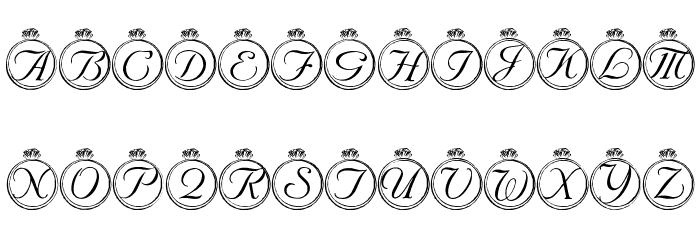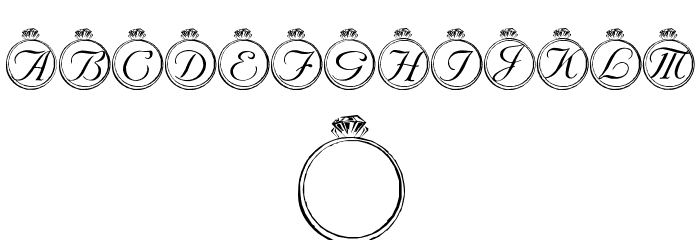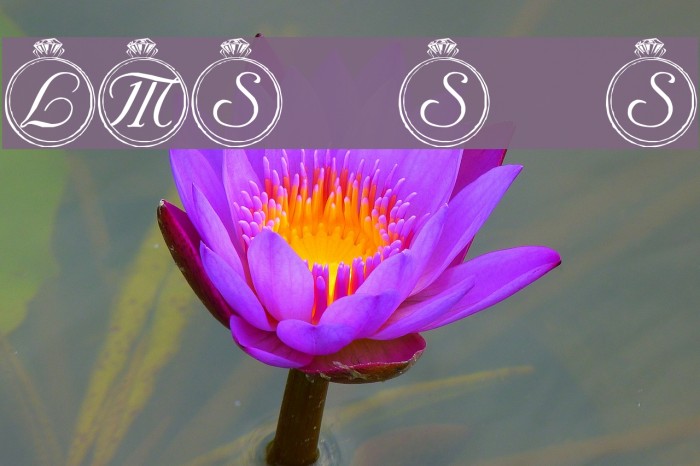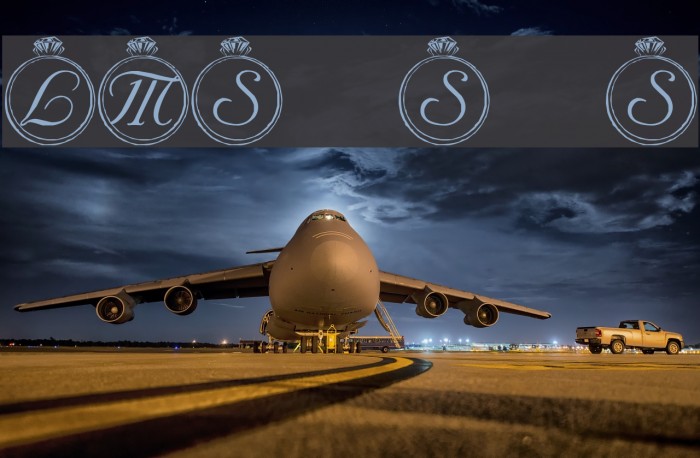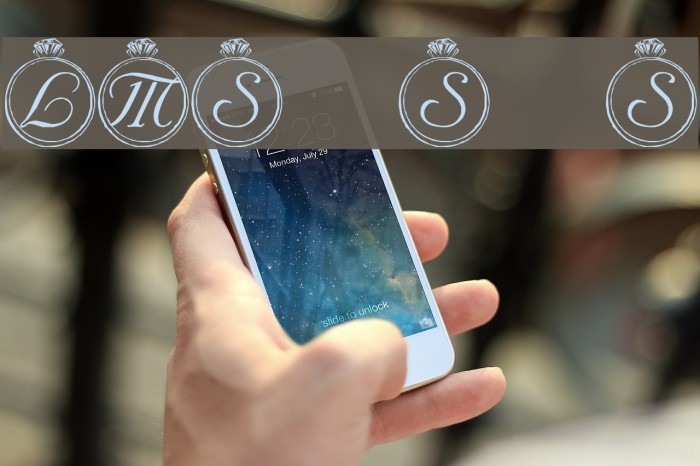
LMS Solitary Stone Font
This decorative font features elegant, cursive letters enclosed within ornate ring designs, each topped with a small gemstone illustration. The letters are stylized with a classic script flair, emphasizing curves and flourishes that evoke a sense of sophistication and luxury. The overall presentation is reminiscent of jewelry, making it ideal for themes related to weddings, engagements, or high-end fashion. The intricate design of each character suggests a focus on detail and elegance, suitable for projects that require a touch of class and refinement.
An elegant, decorative font with cursive letters inside ornate rings, ideal for luxury themes.
- Proposed Projects: Wedding invitations, luxury brand logos, jewelry advertisements, high-end product packaging.
- Use Case: Logos, Invitations, Branding